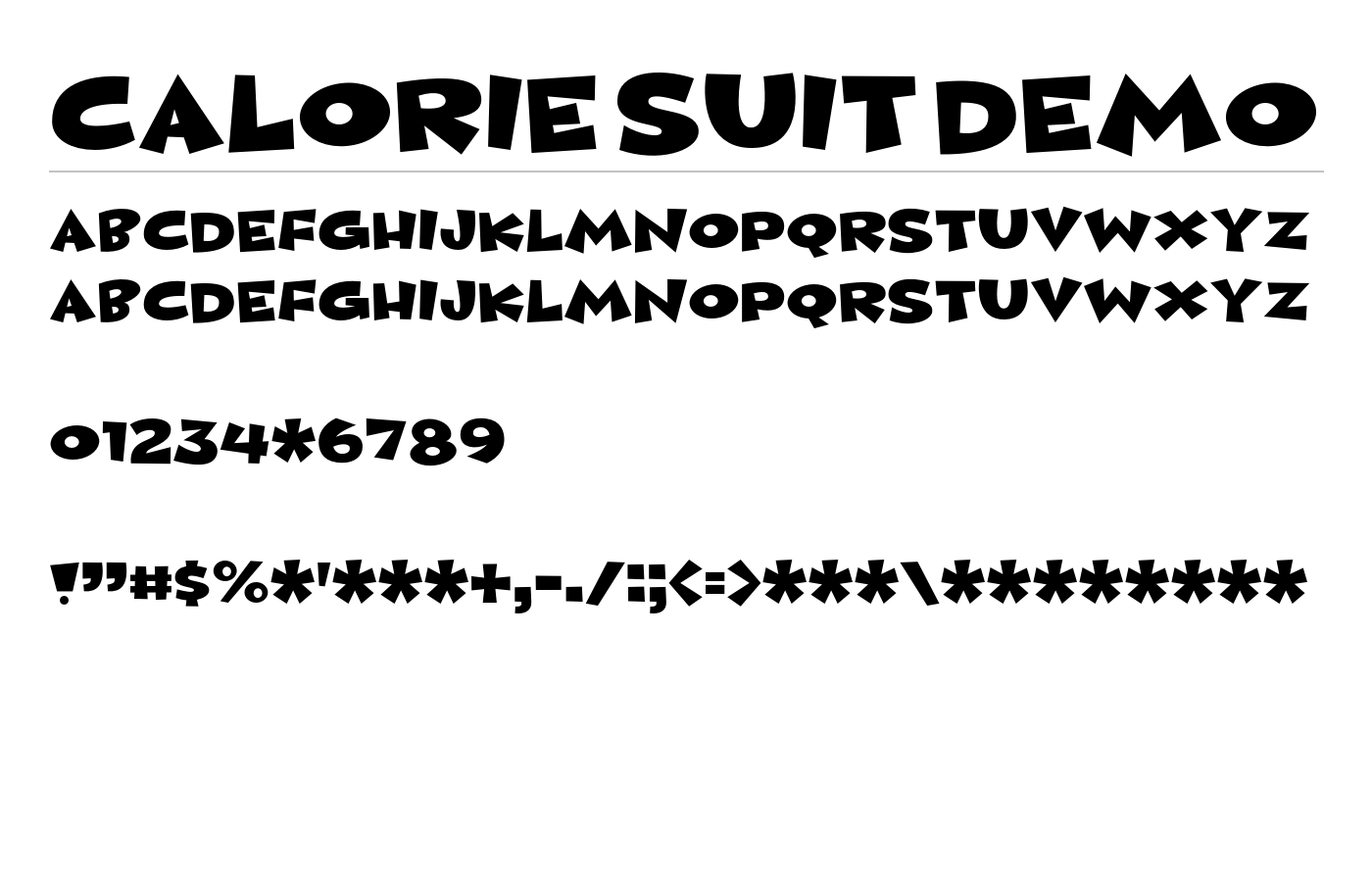
Calorie Suit DEMO is a bold, playful sans serif font with a strong, chunky presence and quirky, irregular letter shapes that add a fun, energetic vibe. Its thick strokes and uneven forms make it perfect for casual, eye-catching headlines, children’s content, or any design seeking a lively and informal tone. This font works best in display settings where a bold personality and approachable feel are desired.
Calorie Suit DEMO Font
About Calorie Suit DEMO Font
| Font family | Calorie Suit DEMO Font |
| Designer | Jakob Fischer / pizzadude.dk |